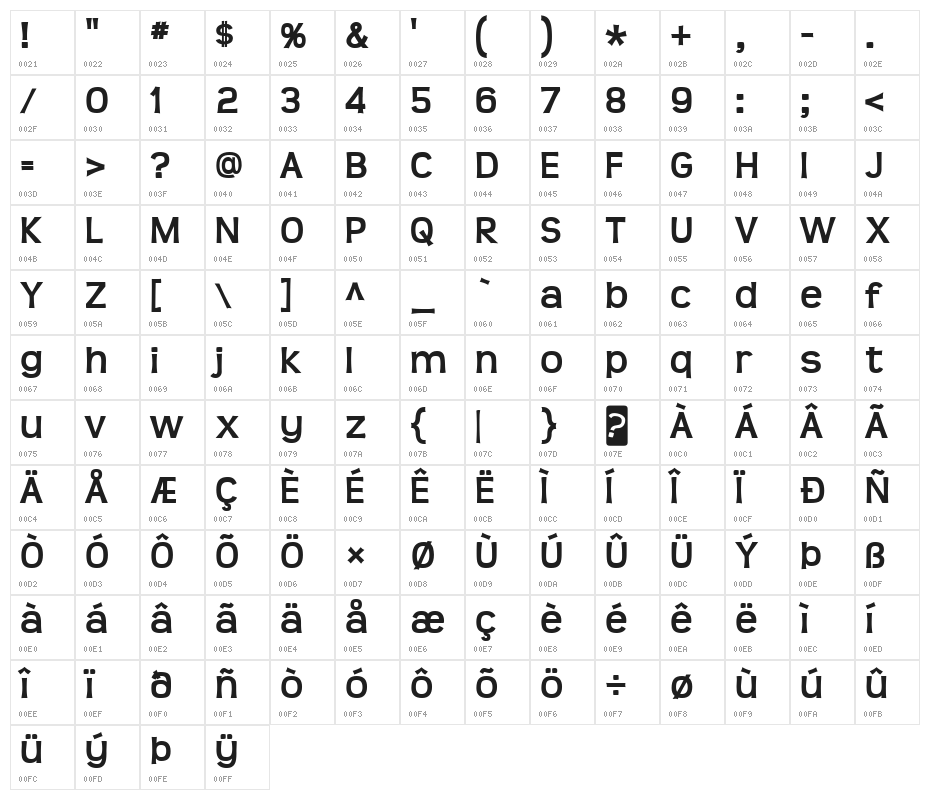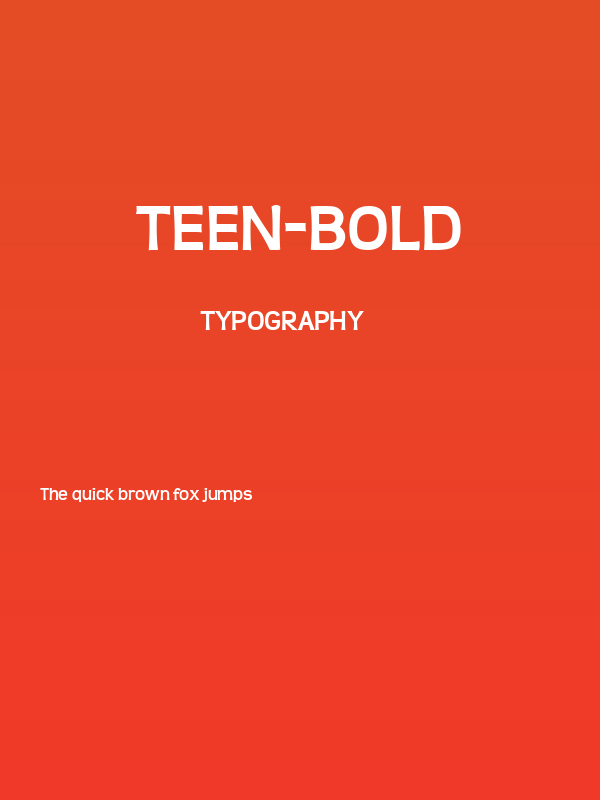
Teen-Bold Font
Teen-Bold Description
This font features bold, clean lines with a modern and slightly playful aesthetic. The uppercase letters are robust and well-defined, providing a strong presence, while the lowercase letters maintain a consistent weight and style, ensuring readability. The numerals are clear and straightforward, making them suitable for various applications. Special characters are designed with the same boldness, ensuring they stand out without overwhelming the text. The overall design is versatile, making it suitable for both digital and print media.
| Use Case | Headlines, Logos, Advertising |
| Proposed Projects | Ideal for branding, advertising, headlines, and digital media where a strong, modern presence is needed. |